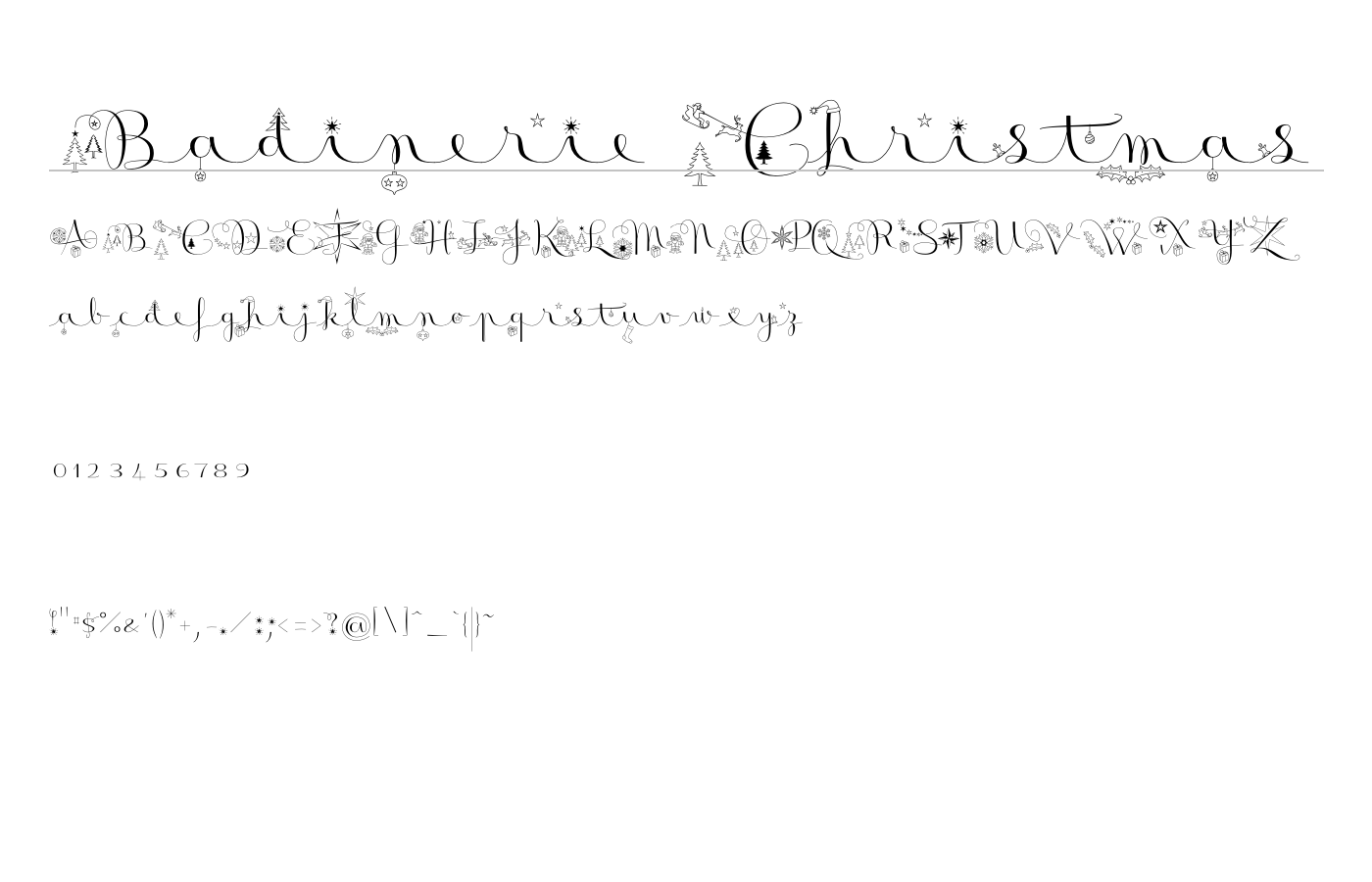
Badinerie is a delicate, whimsical script font with a light weight and airy feel, featuring elegant thin strokes and playful decorative elements inspired by Christmas motifs. Its handwritten style with flowing lines and unique ornamental capitals adds a festive, charming personality ideal for seasonal greetings, holiday branding, and decorative headlines. This font works best in joyful, creative contexts where a touch of elegance and holiday spirit is desired.
Badinerie Font
About Badinerie Font